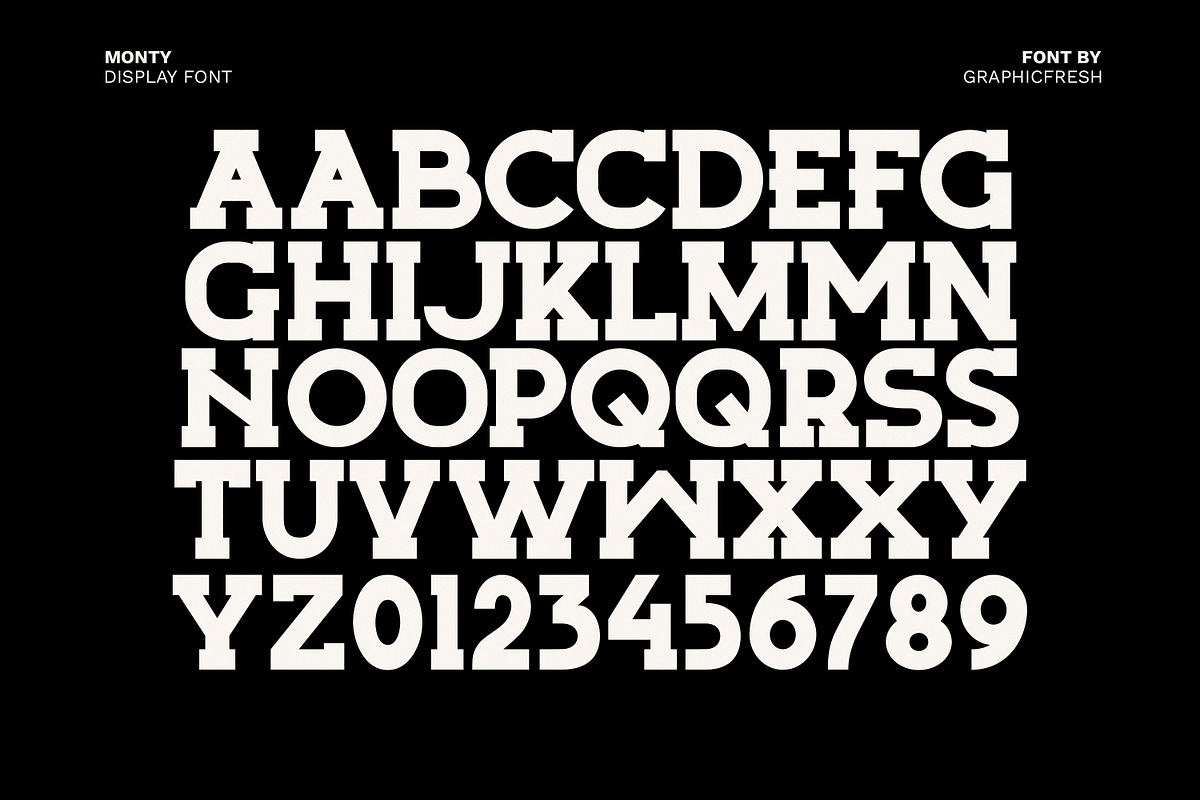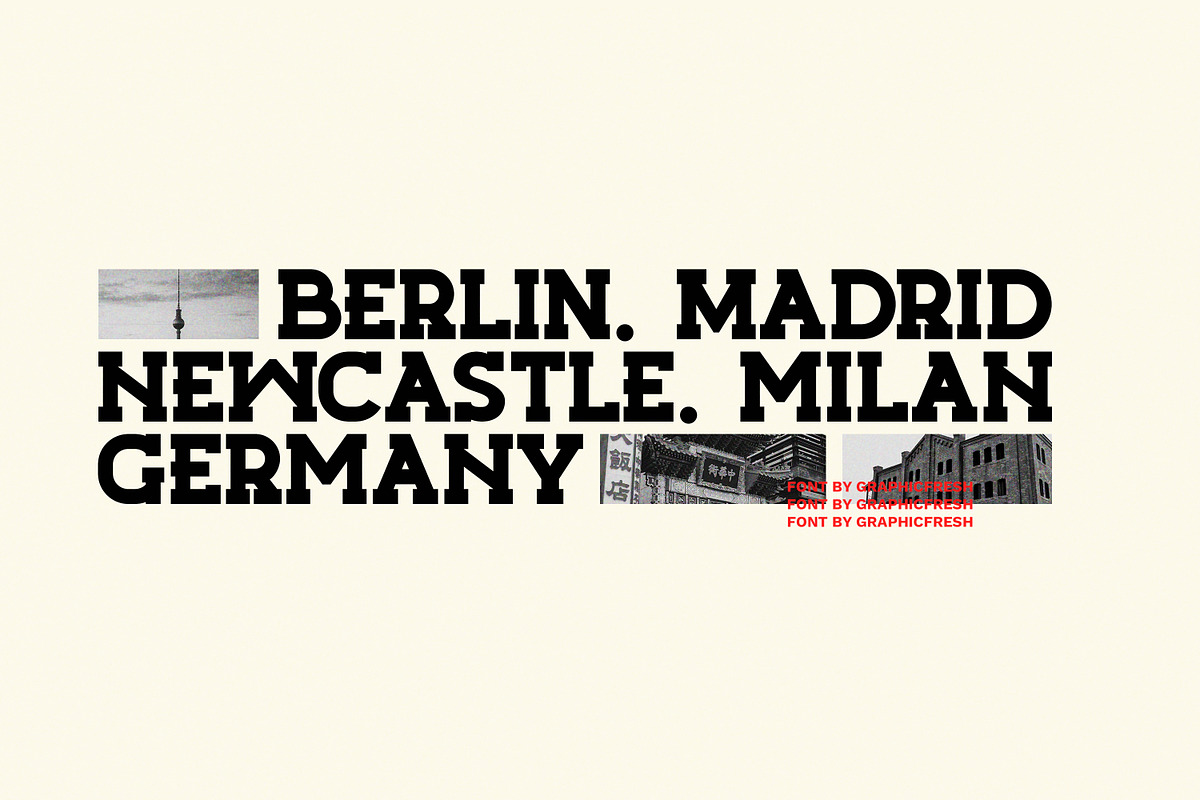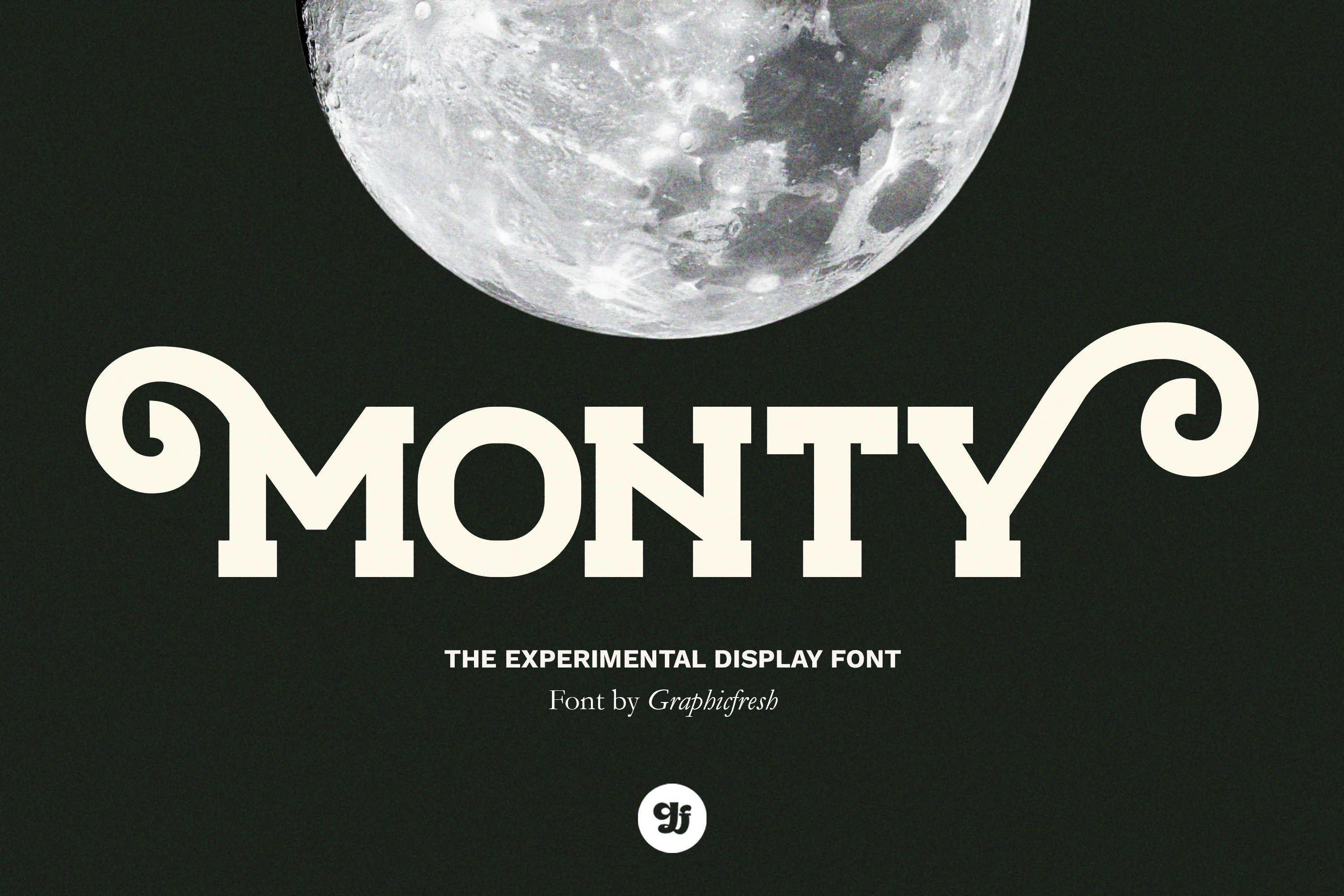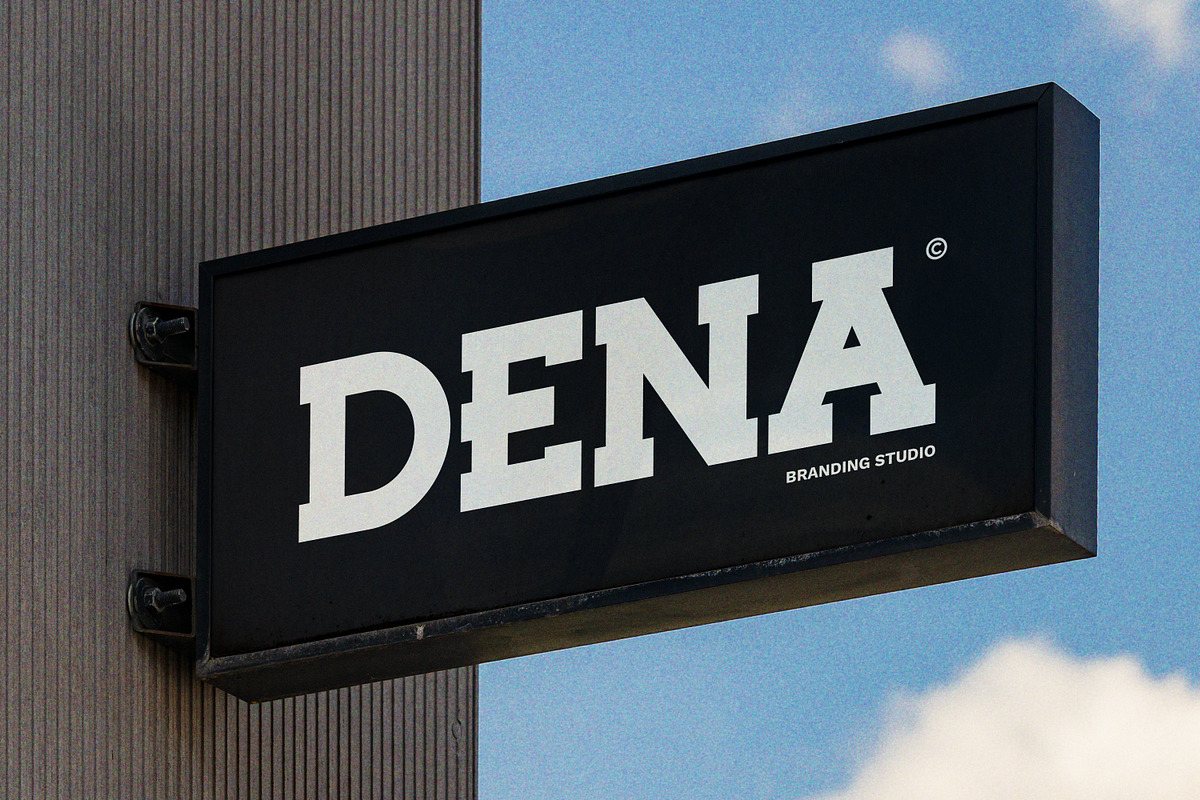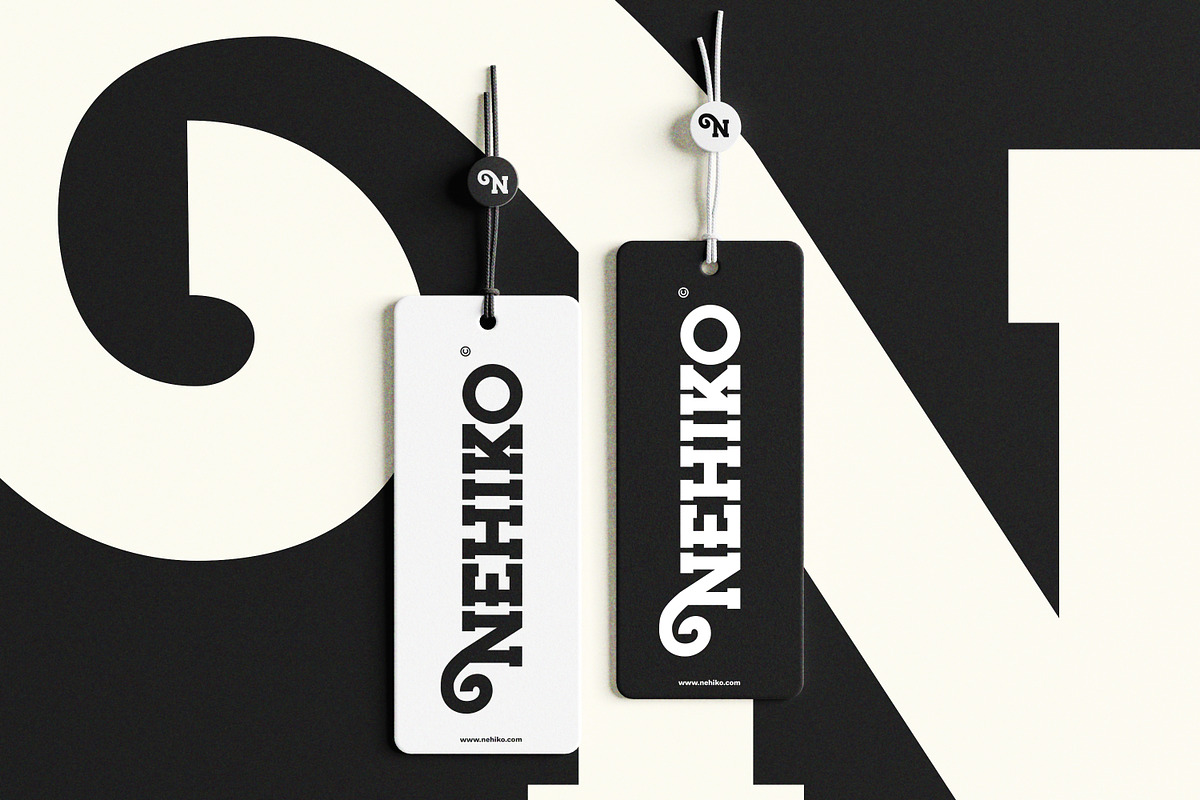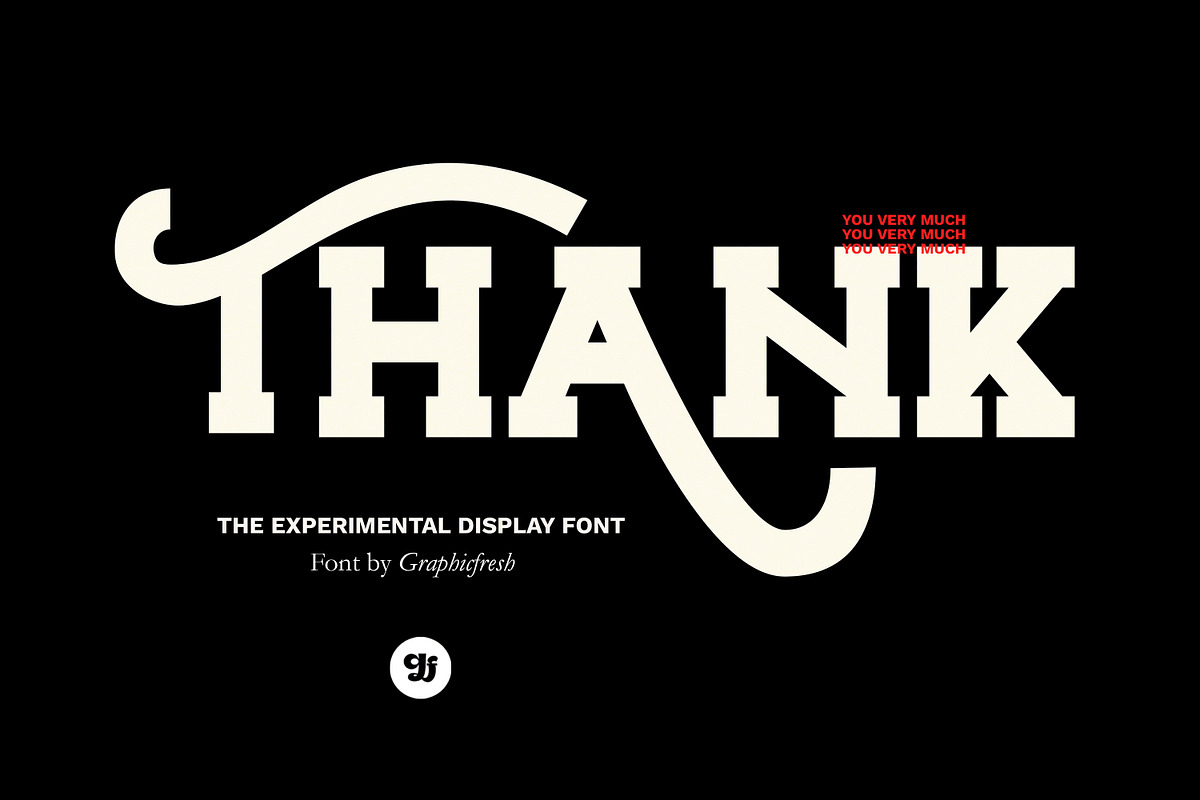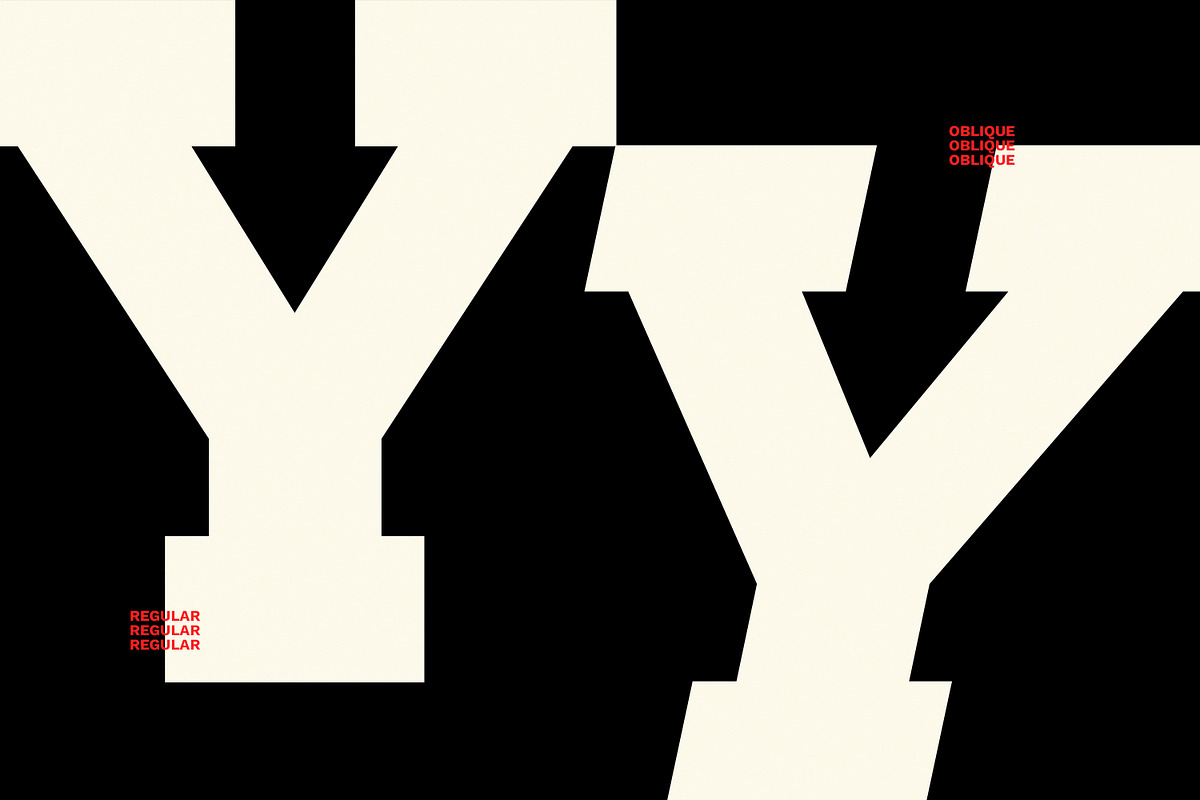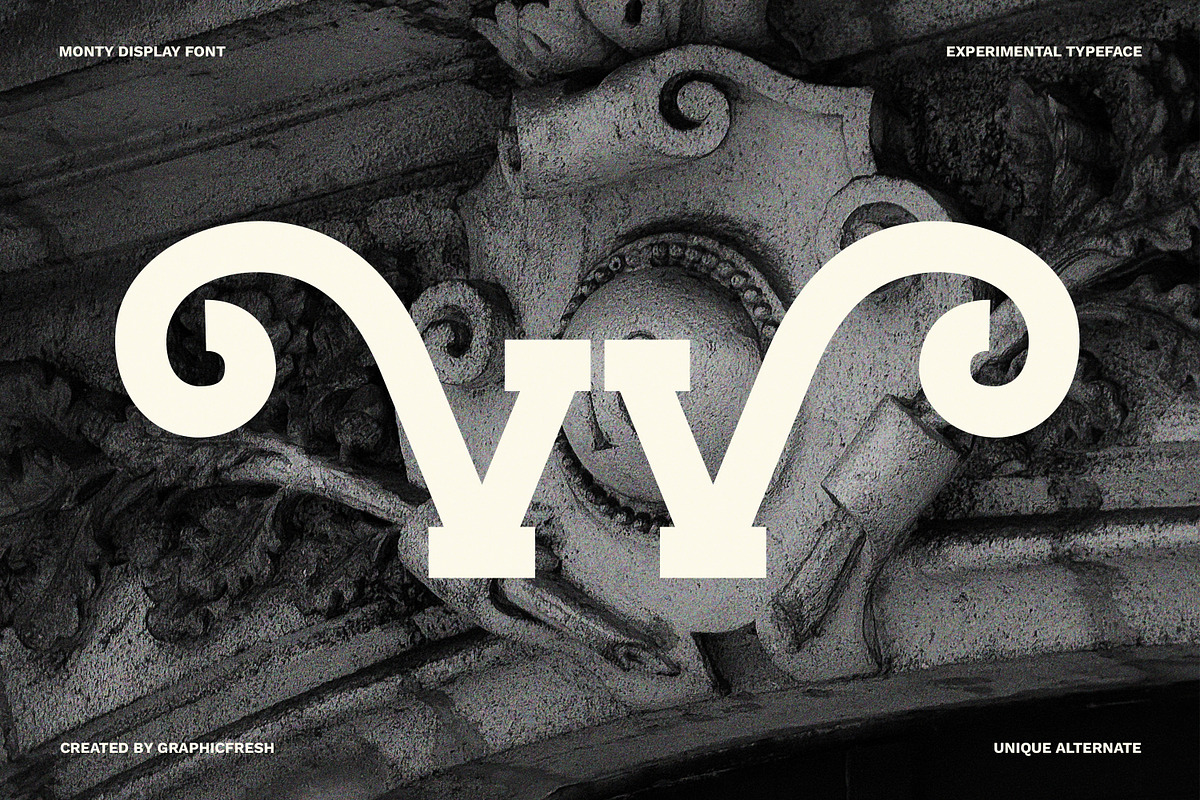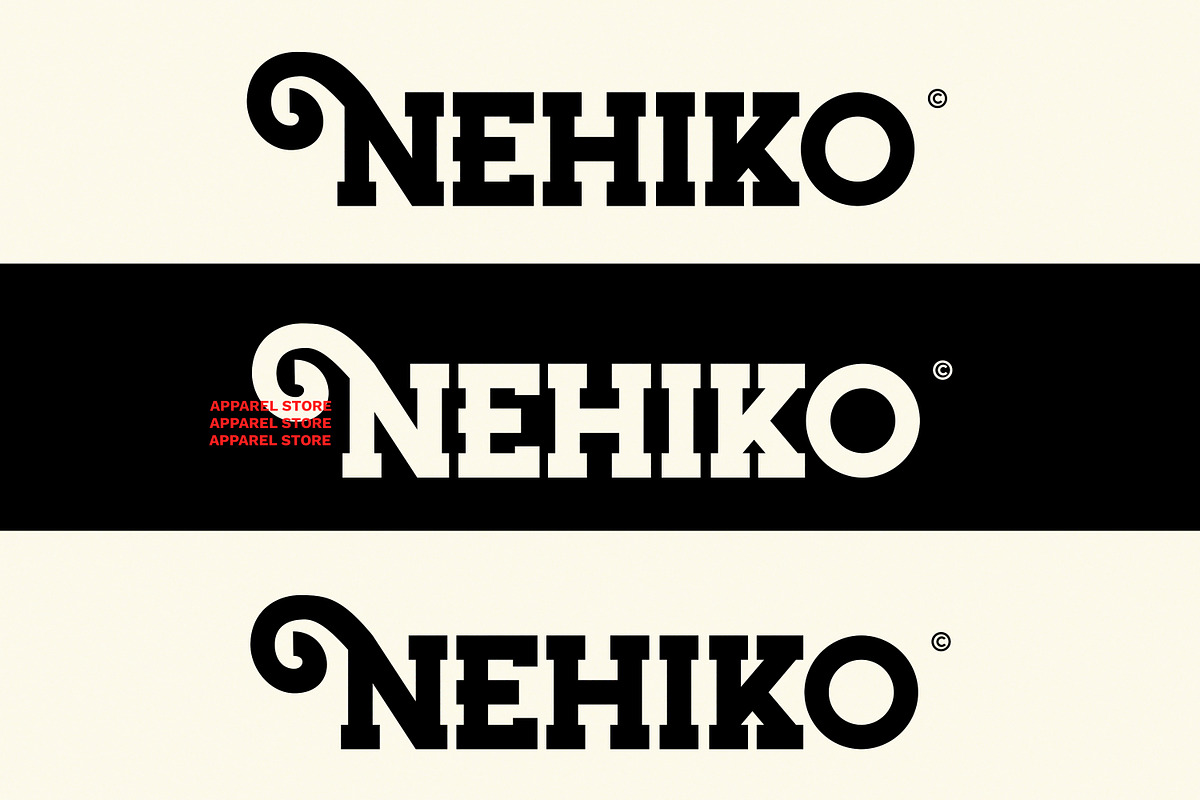
Monty - Experimental Display Font
Monty is a bold experimental display font designed to bridge professional clarity and creative expression. With a modern structure and confident presence, Monty delivers strong visual impact while remaining clean and versatile.
The font family includes Regular and Oblique styles, both available in Bold weight, giving designers flexibility for dynamic layouts and clear typographic hierarchy. Monty also features a set of alternates, allowing subtle experimentation or expressive customization depending on the project’s needs.
Monty is well suited for branding, corporate identity, marketing materials, editorial headlines, posters, packaging, digital platforms, and social media graphics. Its balance of structure and personality makes it ideal for brands and creatives seeking a modern, distinctive, and professional display font.